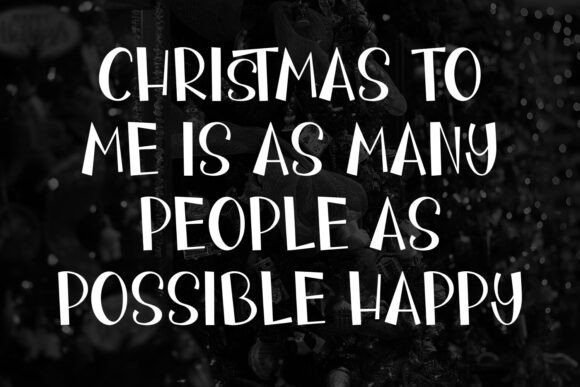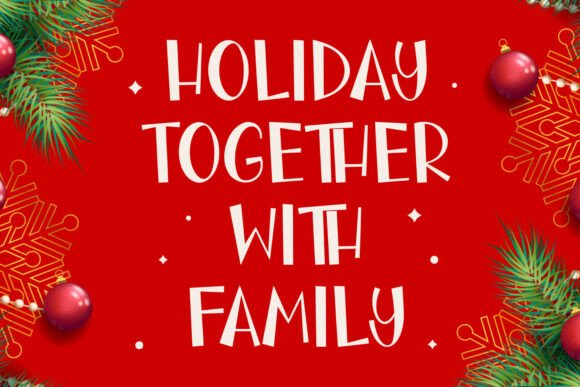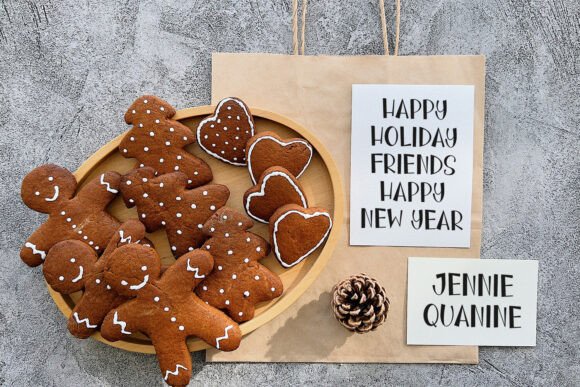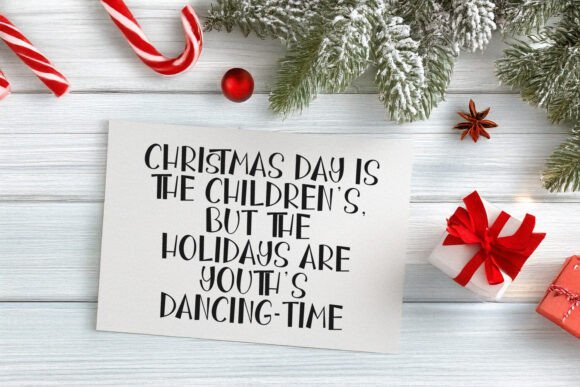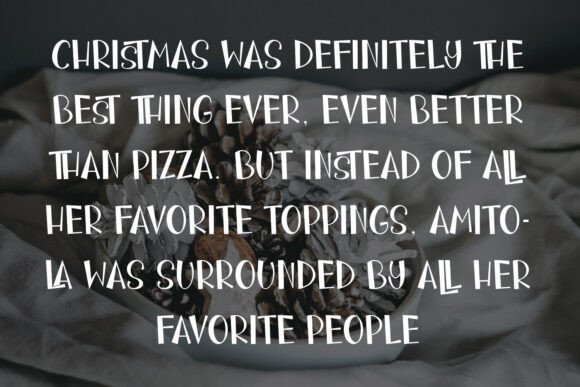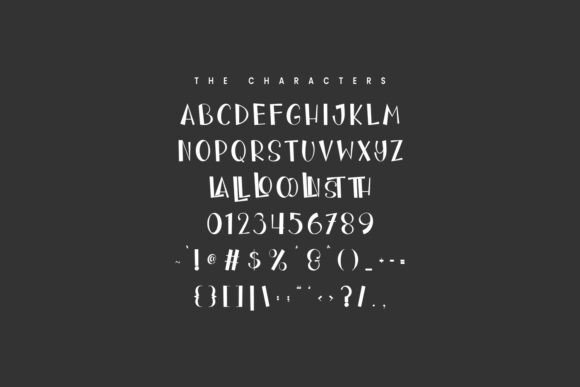
Introduction to Ooblast Font
Do you ever have those moments when you’re brainstorming a new creative project and you’re stuck on finding the perfect design element to make it pop? You scroll through your font library, and nothing seems quite right. But then, like a ray of sunshine, you stumble upon the perfect font – and it’s Ooblast Font!
This delightful display font is more than just a pretty face; it’s a game-changer for designers looking to add a touch of whimsy and joy to their work. With its high-quality, transparent background, Ooblast Font is the perfect addition to any design project. Whether you’re working on a digital project or a print design, this font is sure to bring a smile to your face and make your work stand out from the crowd.
Key Features of Ooblast Font
- Characteristics of a modern, clean, and minimalist design, ideal for use in logos, branding, and digital design.
- Comes in a single font style, with multiple weights and sizes, allowing for versatility in creative projects.
- Perfect for designers and artists looking for a unique and professional design resource for their creative project.
Honest Review: Ooblast Font
One of the standout features of the Ooblast Font is its versatility. It’s suitable for a wide range of design projects, from branding and marketing materials to digital art and graphics. The font also comes with a transparent background, making it easy to use in combination with other design elements.
Here are some of the things that work well with the Ooblast Font:✨
- High-quality design: The Ooblast Font is carefully crafted to ensure a smooth and consistent look.
- Transparent background: The font’s transparent background makes it easy to use in combination with other design elements.
However, there are some limitations to consider: ⚠️
- Limited character set: The font may not include all the characters you need for a specific project.
- Not ideal for large body text: The font may not be the best choice for large blocks of text due to its decorative nature.
Overall, I’m impressed with the Ooblast Font, and I think it’s a great addition to any designer’s toolkit. It’s a high-quality, versatile font that’s perfect for a wide range of design projects.
Tips for Getting the Most Out of Ooblast Font
To get the most out of Ooblast Font, experiment with different font sizes, colors, and styles to create a unique look. You can also use the font in combination with other design elements to add depth and interest to your design.
Ooblast Font is perfect for a variety of design applications, including logos, brochures, business cards, and social media graphics. Its high-quality design and transparent background make it a versatile choice for any creative project.